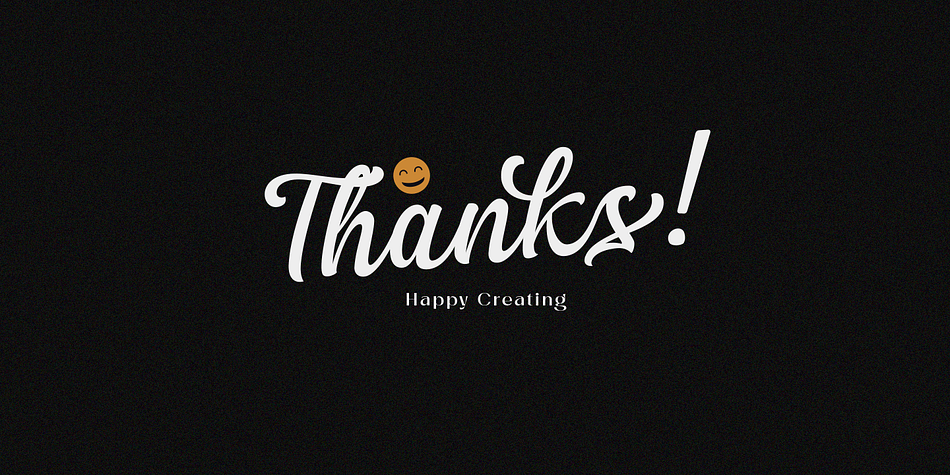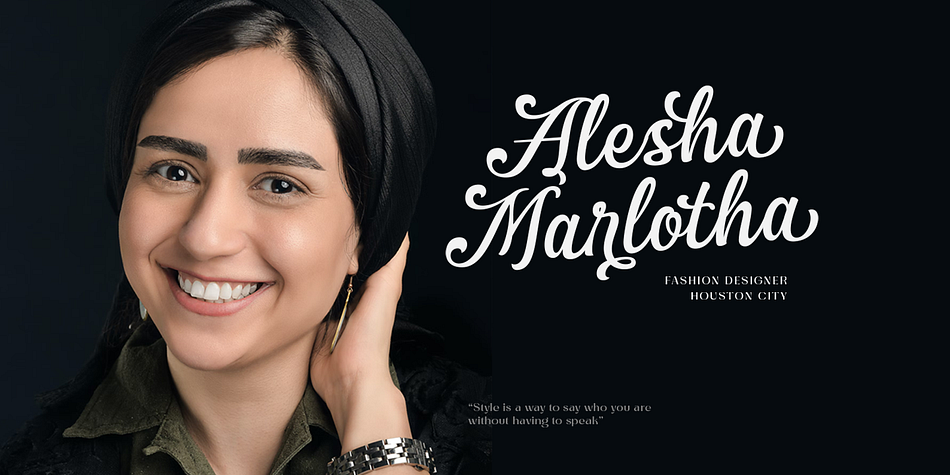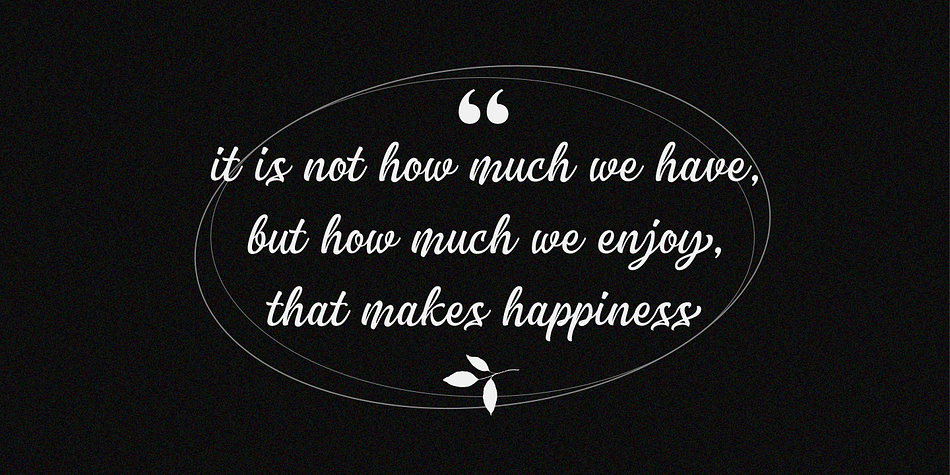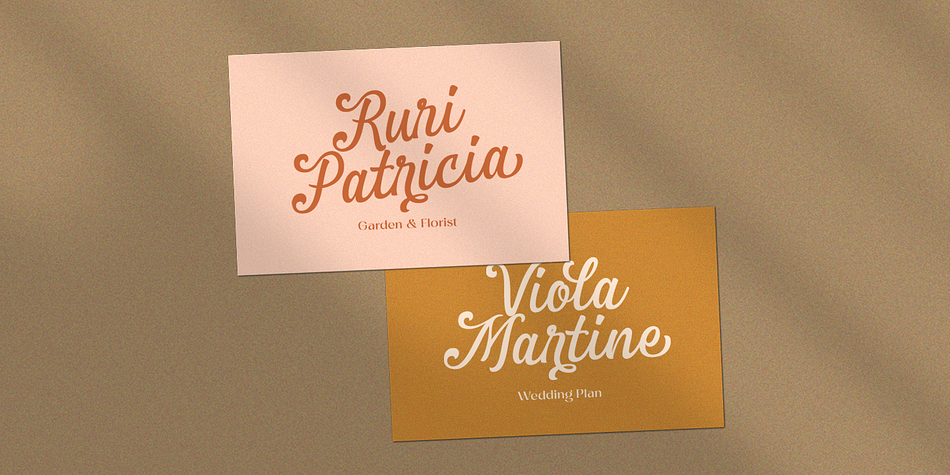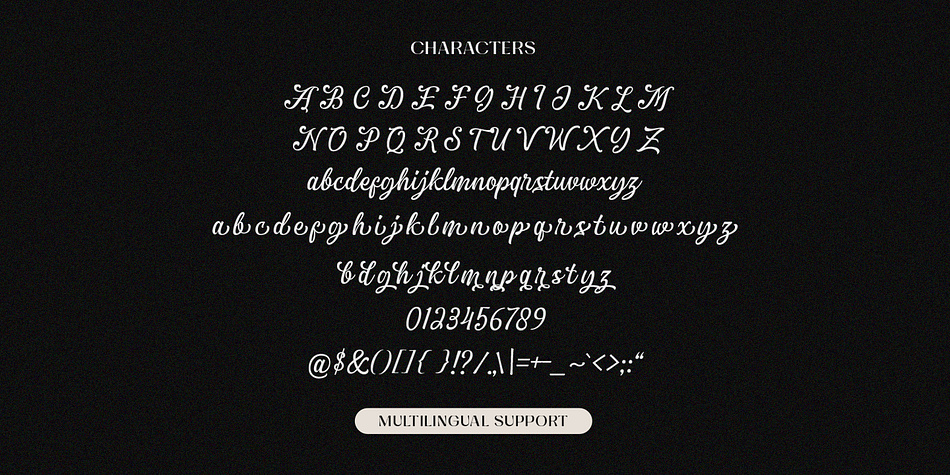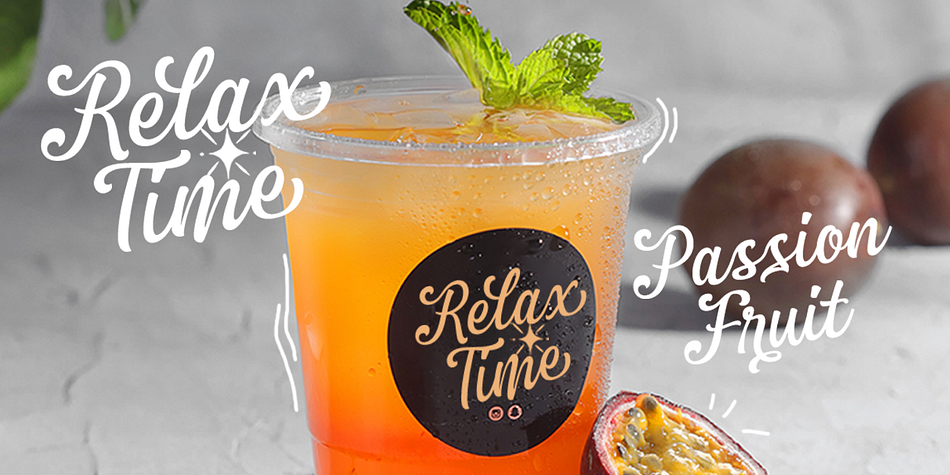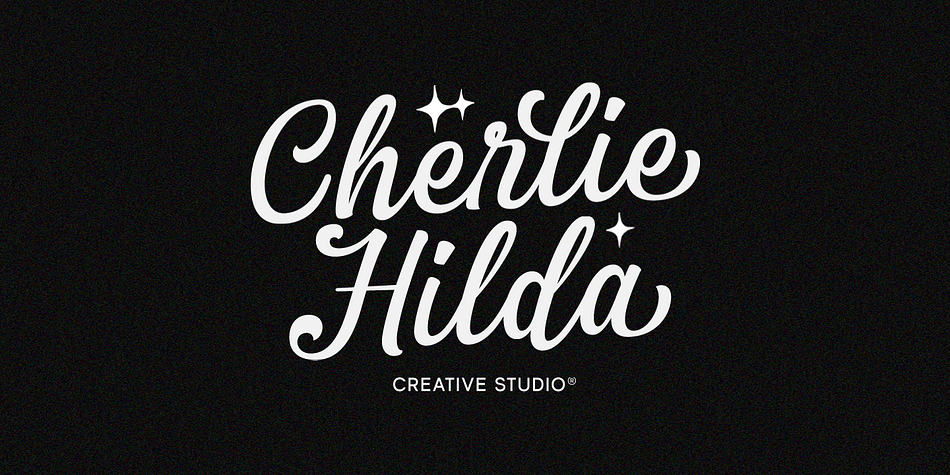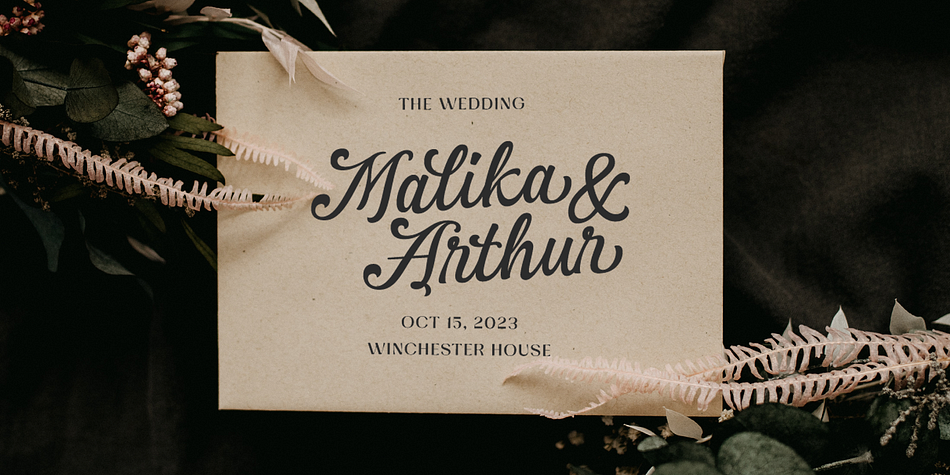
Designed by Hendry Juanda, Briella Script is a script font family. This typeface has two styles and was published by Letterhend Studio.
Briella Script is a beautiful and classy script. This font perfectly made to be applied especially in logo, and the other various formal forms such as invitations, labels, logos, magazines, books, greeting / wedding cards, packaging, fashion, make up, stationery, novels, labels or any type of advertising purpose.
- ligatures
- alternates
- swashes